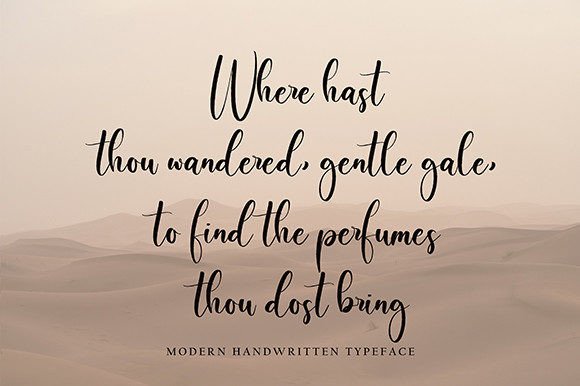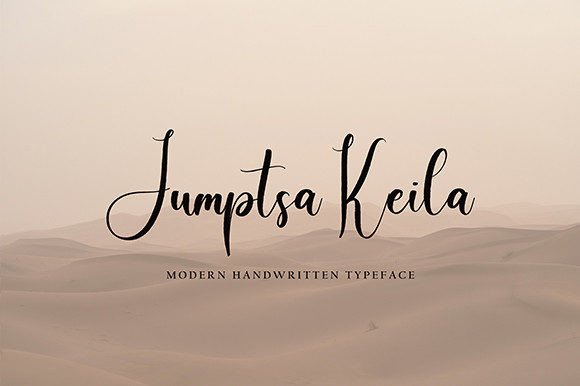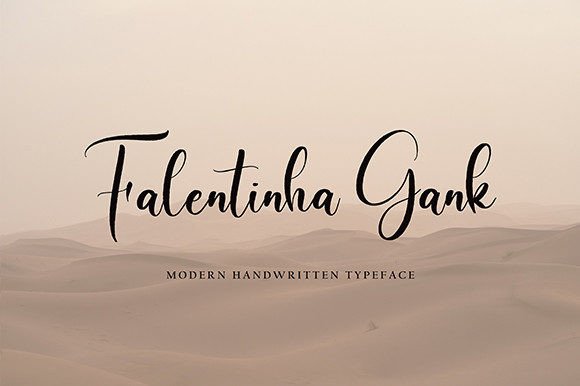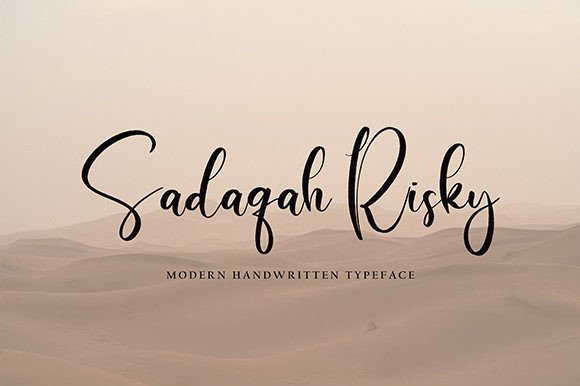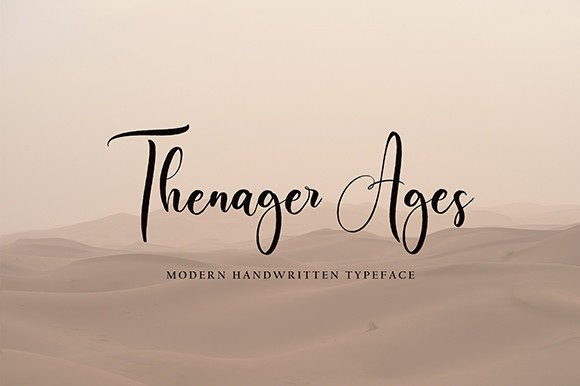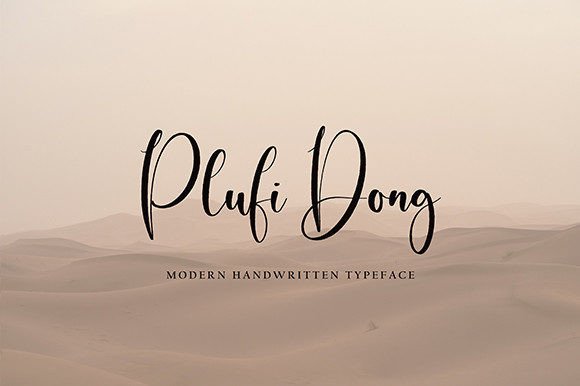
Introducing Aleandra Bella Font: Elevate Your Designs with Elegance
Are you on the hunt for a font that exudes elegance and sophistication? Look no further than Aleandra Bella Font, a stunning handwritten font that is sure to capture your heart. With its flowing lines and timeless style, Aleandra Bella is the perfect addition to any design project. In this article, we’ll dive into the world of Aleandra Bella Font, exploring its unique features, uses, and benefits for designers and crafters alike.
The Beauty of Aleandra Bella Font
Aleandra Bella Font is a masterpiece of handwritten typography, boasting an elegant touch that sets it apart from other fonts. Its incredibly distinct style is characterized by flowing lines, subtle curves, and a sense of movement that gives it a dynamic feel. Whether you’re working on a logo, branding project, or social media graphics, Aleandra Bella Font is sure to make a lasting impression.
Key Features of Aleandra Bella Font
- Handwritten elegance: Aleandra Bella Font is a true representation of handwritten typography, with a personal touch that makes it relatable and authentic.
- Flowing lines: The font’s flowing lines create a sense of movement and fluidity, making it perfect for designs that require a touch of dynamism.
- Timeless style: Unlike trendy fonts that quickly go out of style, Aleandra Bella Font has a timeless quality that ensures it will remain relevant for years to come.
- Versatility: This font is incredibly versatile, suitable for a wide range of design projects, from logos and branding to social media graphics and more.
Uses for Aleandra Bella Font
So, what can you create with Aleandra Bella Font? The possibilities are endless! Here are a few ideas to get you started:
- Logos and branding: Create a lasting impression with a custom logo that showcases your brand’s personality and style.
- Social media graphics: Elevate your social media presence with eye-catching graphics that feature Aleandra Bella Font.
- Wedding and event invitations: Add a touch of elegance to your wedding or event invitations with this beautiful font.
- Packaging design: Make your product stand out on store shelves with Aleandra Bella Font featured on your packaging.
So, why should designers and crafters choose Aleandra Bella Font for their projects? Here are just a few benefits:
- Easy to read: Despite its elegant style, Aleandra Bella Font is incredibly easy to read, making it perfect for designs that require a clear message.
- Customizable: With Aleandra Bella Font, you can experiment with different colors, sizes, and styles to create a unique look that suits your project.
- Time-saving: This font is ready to use, saving you time and effort in the design process.
- Inspires creativity: Aleandra Bella Font is sure to inspire your creativity, helping you to come up with fresh ideas and innovative designs.
In conclusion, Aleandra Bella Font is a true gem in the world of typography. With its elegant touch, flowing lines, and timeless style, this font is sure to capture your heart and elevate your designs. Whether you’re a designer, crafter, or simply someone who appreciates beautiful typography, Aleandra Bella Font is a must-have addition to your toolkit. So why wait? Fall in love with Aleandra Bella Font and create spectacular designs that leave a lasting impression!